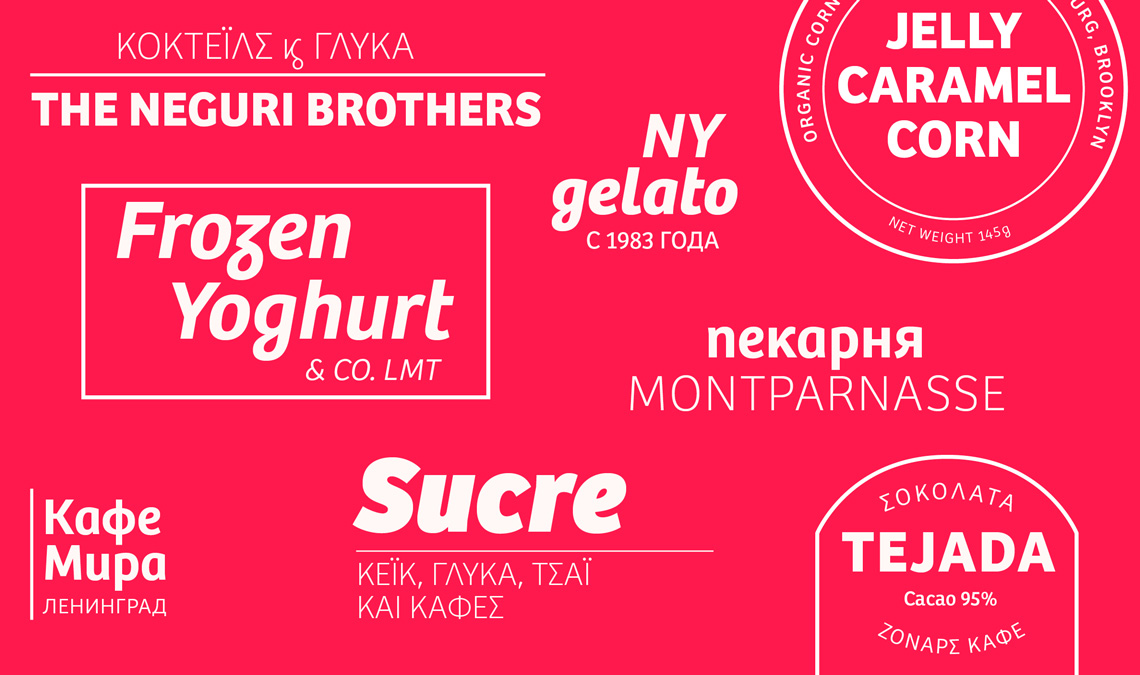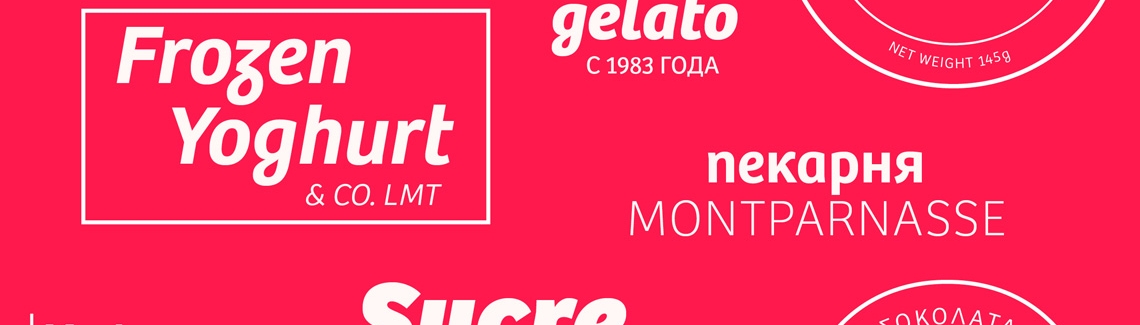
New & Updated: Bree
What’s the difference between an update and a new release? And what happens when they’re closer than expected? You get this: An updated Bree Latin with improved glyphs, new glyphs, and additional language support for Vietnamese, and an all-new Bree Cyrillic, Bree Greek, and Bree variable font — added for free in the full bundle.
Bree
Bree has been in the spotlight since her debut a decade ago, and rightly so. She is a spry sans serif by Veronika Burian and José Scaglione that delivers a spirited look and feel for branding and headline usage. She’s a charming, confident font family that fits in so many environments, and now even more so. Bree is in the perfect position for the next digital revolution. Read about all the new advancements to the Bree family and grab your FREE update!
Bree Cyrillic
Bree Greek